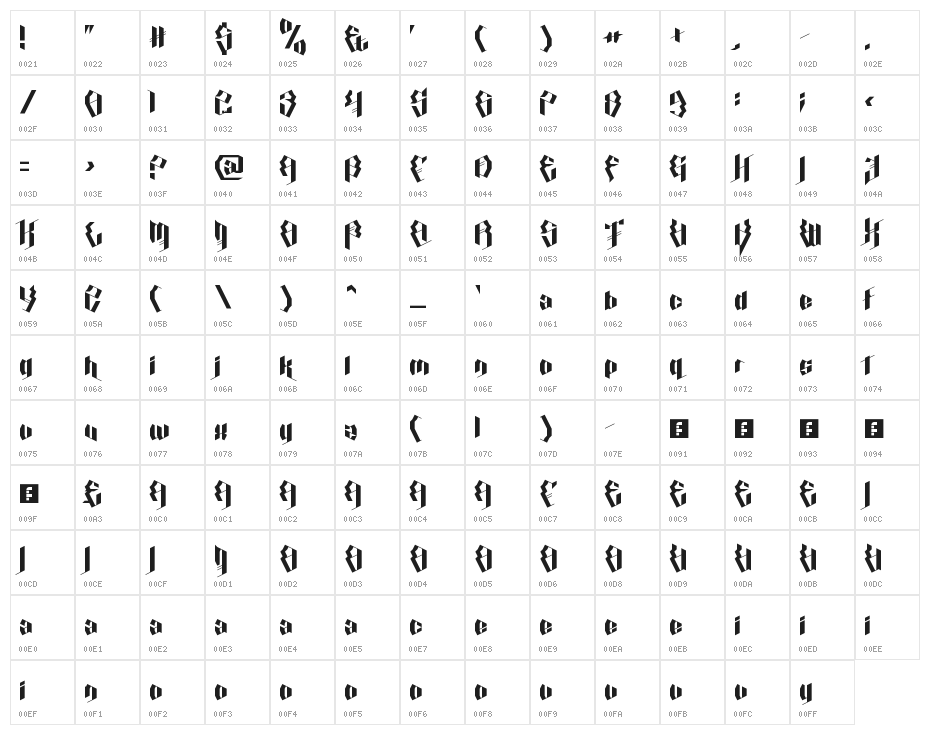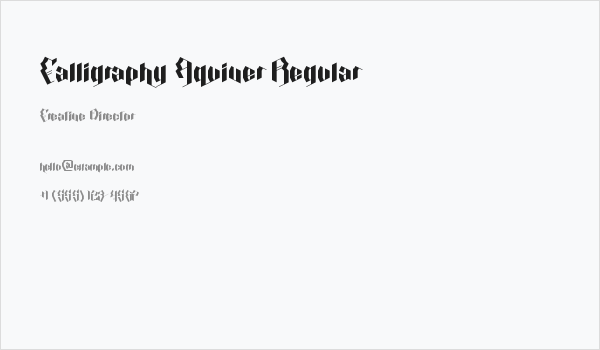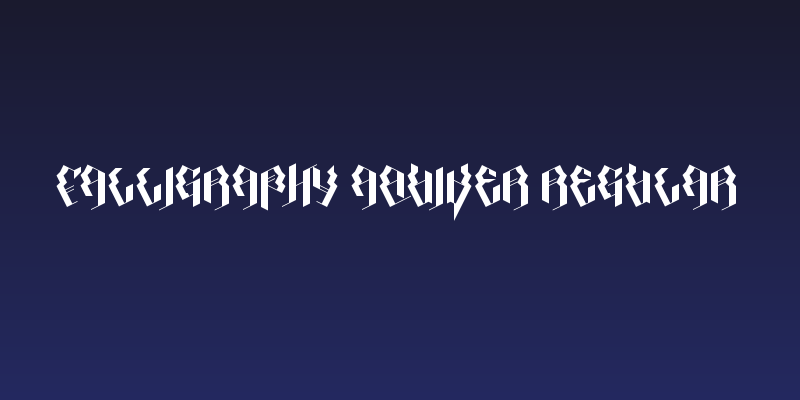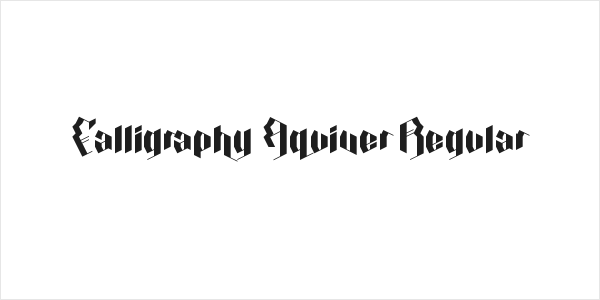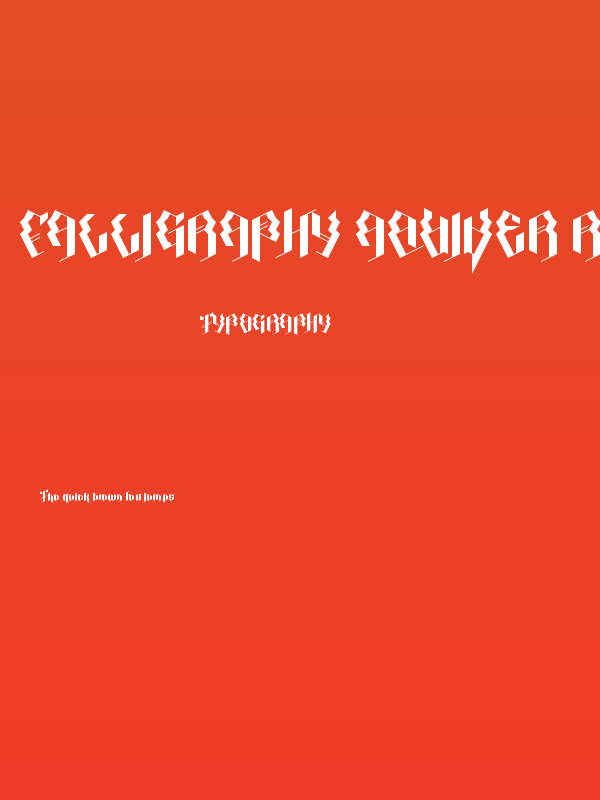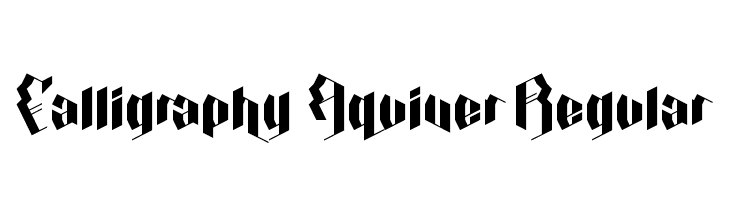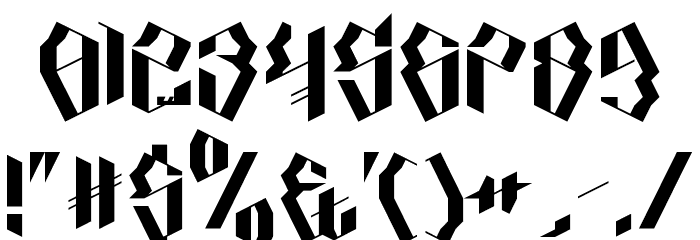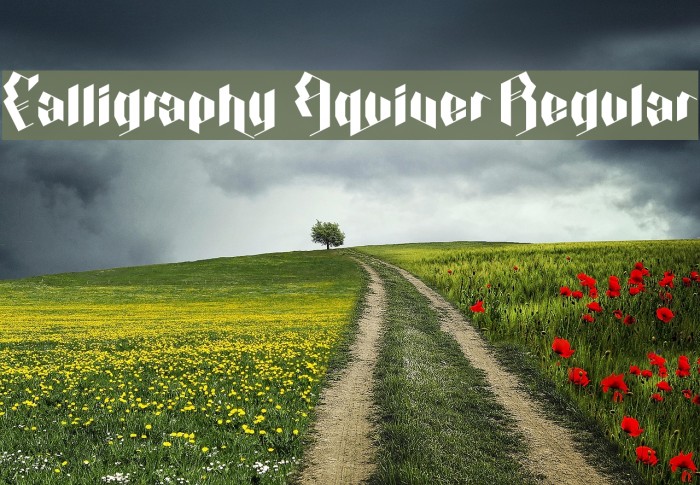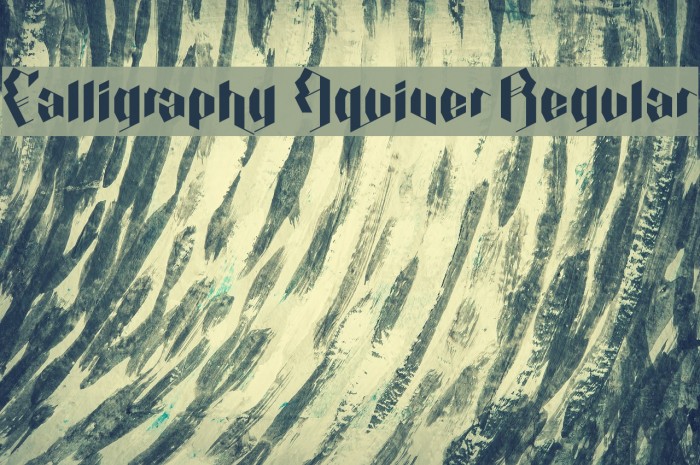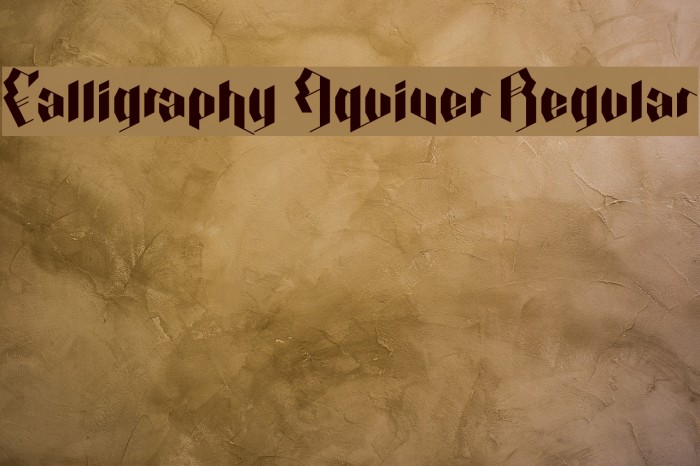
Calligraphy Aquiver Regular Font
Calligraphy Aquiver Regular Description
This font exhibits a bold and striking design, characterized by sharp, angular lines and a gothic-inspired aesthetic. The uppercase and lowercase letters maintain a consistent style, with dramatic strokes and pointed edges that create a sense of movement and energy. The numbers and special characters follow the same design principles, ensuring a cohesive look across all elements. The font's unique style makes it stand out, with a strong presence that commands attention.
| Proposed Projects | Ideal for projects that require a strong visual impact, such as posters, album covers, or branding for edgy or alternative products. |